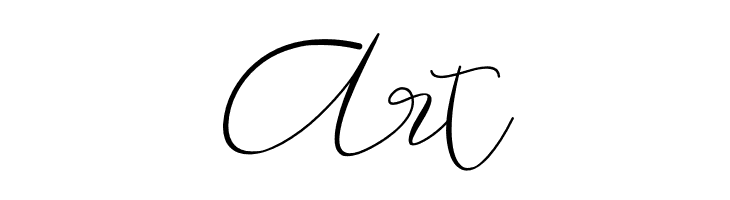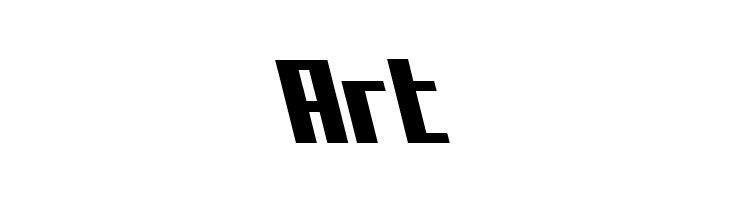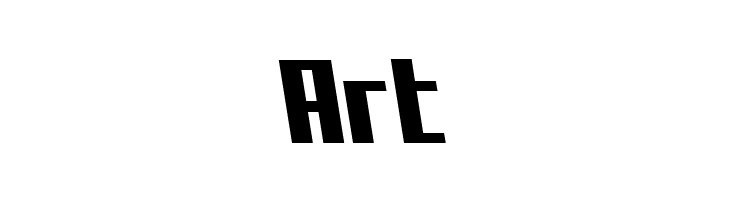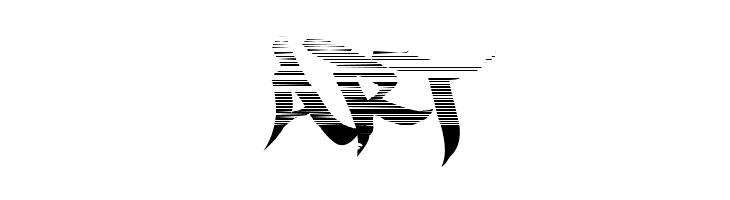
A bold, angular font with a leftward slant, exuding energy and modernity.
A bold, angular font with a leftward slant, offering a modern and dynamic style.
A bold, graffiti-inspired font with sharp, angular lines and dynamic strokes.
A bold, geometric font with sharp angles and a modern industrial feel.
A Gothic-inspired font with sharp, angular lines and historical flair.
A textured, hand-drawn font with a playful, artistic feel.
A bold, brush-stroke font with an energetic and artistic style.
A playful, handwritten font with smooth, rounded strokes and a casual style.
A lively and elegant script font with flowing, interconnected letterforms and ornate flourishes.
A graceful script font with elegant, flowing cursive letters.